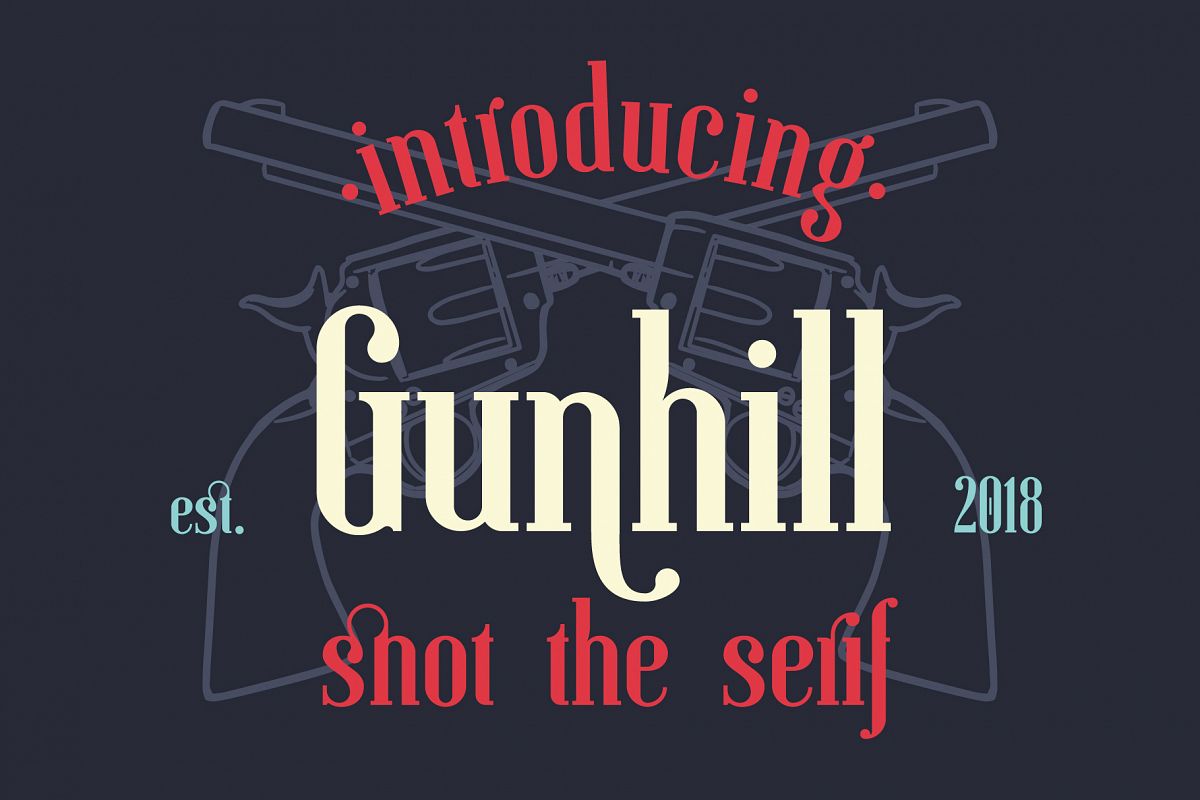
Gunhill
Gunhill-Regular
Gunhill is an elegant semi-condensed modern serif font inspired by vintage fonts.
It perfectly represents modern and vintage esthetics.
The font is perfect for wedding elegant invitation cards, beauty and fashion package design,
very suitable for books design, magazines typography, packaging, branding and more other creative project
Font includes both types of ligatures: standard and discretionary